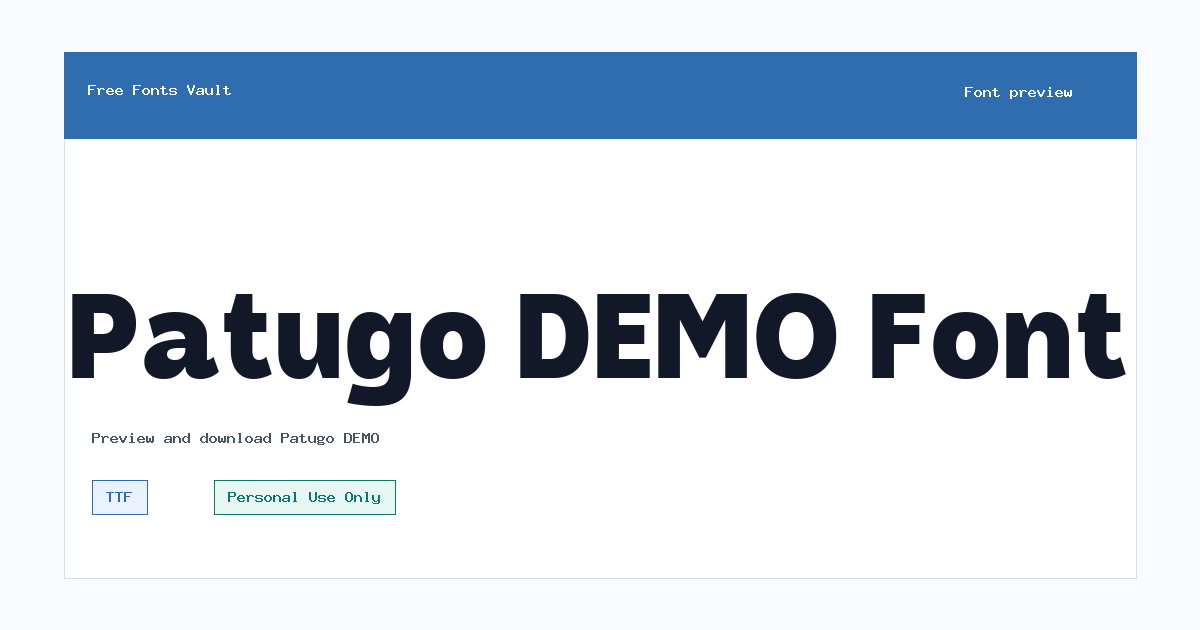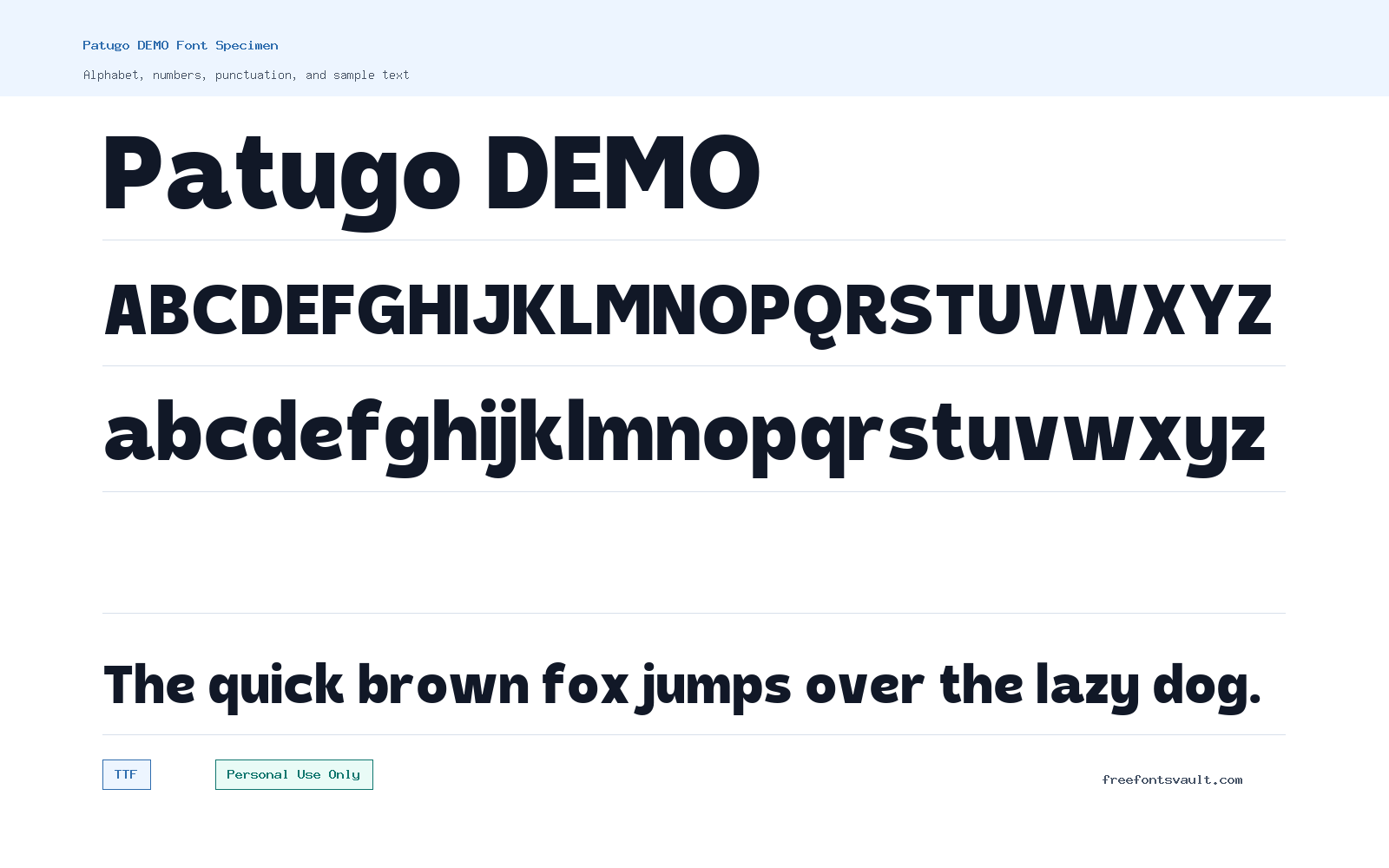
Patugo DEMO
Patugo DEMO font preview showing the family name
Patugo DEMO Font
Patugo DEMO font specimen showing alphabet, numbers, and sample text
Patugo DEMO font.
Patugo DEMO is a display-style font made for short, noticeable text. It is best approached as a preview and personal-use typeface for trying out headlines, logo ideas, posters, and visual mockups before deciding whether it fits a larger project.
About Patugo DEMO
Patugo DEMO is credited to Say Studio and comes as a regular TrueType font file. The name and demo label suggest a font meant for testing the look of the family rather than serving as a complete commercial-use package. Since only one regular style is listed, it works best when you need a single strong text treatment rather than a full typography system with multiple weights, italics, or extended layout options.
Use Patugo DEMO where the lettering itself needs to carry visual weight: display headings, social graphics, poster titles, packaging mockups, logo sketches, thumbnails, and short web hero text. It is not the kind of font to choose first for long paragraphs or dense reading layouts. For best results, type your actual project words in the preview, check the spacing between letters, and test both uppercase and lowercase combinations if your design depends on a polished wordmark. Some display fonts look excellent in one or two words but become harder to read in a full sentence, so keep the text short and give it enough room.
For logo work, Patugo DEMO can be useful during the concept stage. Try it with a simple mark, adjust letter spacing carefully, and compare it against a plain sans serif or serif companion font. If the main word uses Patugo DEMO, keep supporting text quiet and readable. A neutral sans serif often works well for subtitles, dates, menus, product details, and body copy because it lets the display type remain the focal point without making the whole design feel crowded.
In poster and web mockup work, treat Patugo DEMO as a headline voice rather than a full page font. Large sizes will usually show its personality better than small captions. If you are building a landing page mockup, try it for the top heading, then use a cleaner font for navigation, buttons, and longer descriptions. If you are making a print piece, export a proof and check whether the letters stay clear at the final size. Display fonts can lose detail when printed too small or placed over busy backgrounds.
• Display-focused family name and demo status make it practical for headline, poster, and logo concept trials
• Single regular style keeps the setup simple for quick mockups and short-text experiments
• Logo concepts and wordmark drafts
• Poster titles and event graphics
• Social media images and thumbnails
• Web hero headings and landing page mockups
• Packaging or label concept previews
• Short personal design experiments
What is Patugo DEMO best used for?
It is most useful for short display text such as logos, poster titles, social graphics, thumbnails, and web headline mockups.
Can I use Patugo DEMO for body text?
It is better suited to short, prominent text. For paragraphs, captions, and interface text, pair it with a cleaner font that is easier to read at smaller sizes.
How should I pair Patugo DEMO with another font?
Use Patugo DEMO for the main title or wordmark, then choose a simple sans serif or readable serif for supporting text. Avoid pairing it with another highly decorative font unless the design is intentionally experimental.